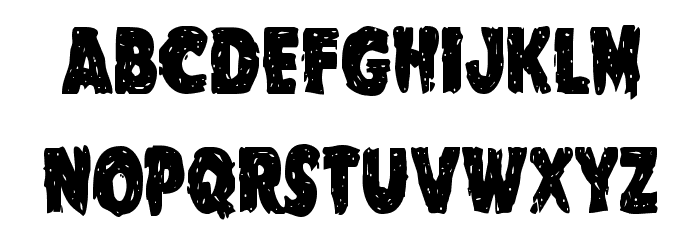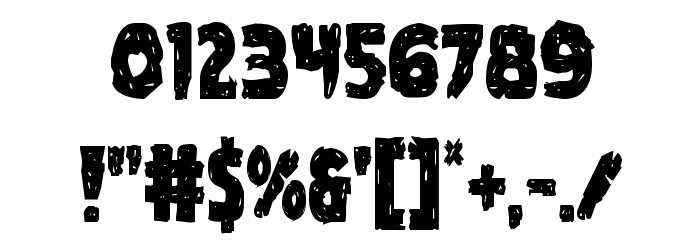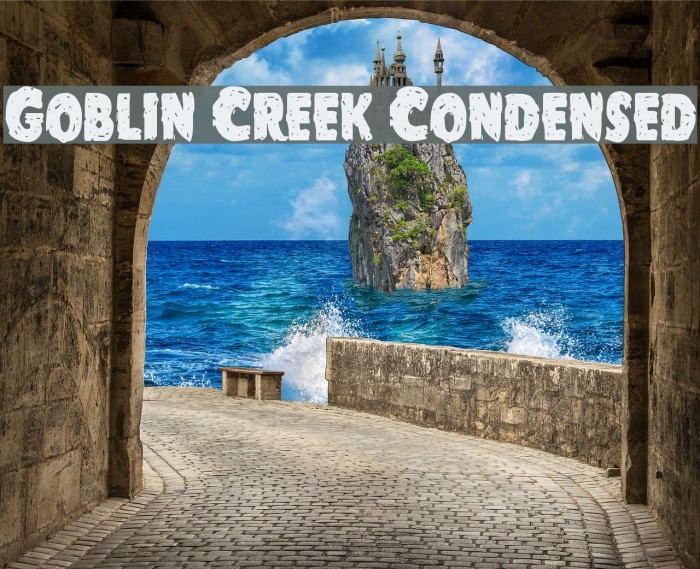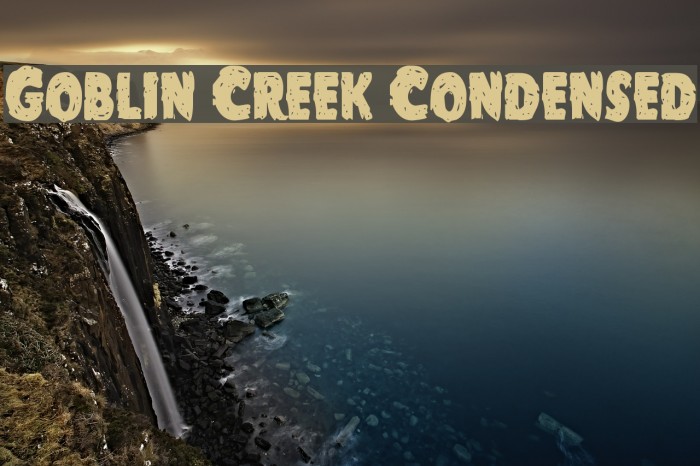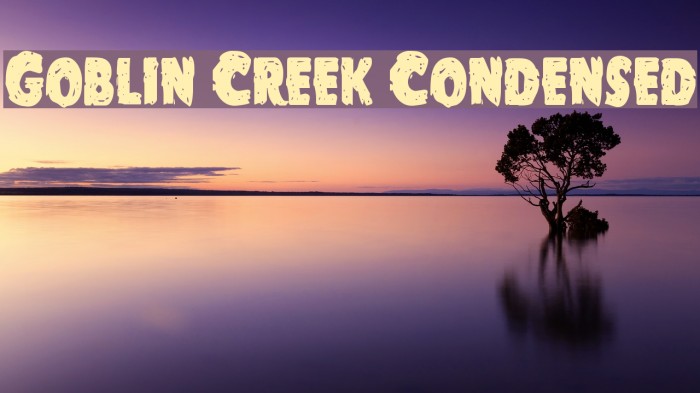
Goblin Creek Condensed Font
This font features a bold and rugged design with a distressed texture, giving it a unique, weathered appearance. The characters are condensed, enhancing their boldness and making them stand out. The uppercase and lowercase letters maintain a consistent style, with jagged edges and irregular shapes that add to the font's rustic charm. The numbers and special characters follow the same design principles, ensuring a cohesive look across all glyphs. This font is ideal for projects that require a strong, eye-catching typeface with a touch of grunge or vintage appeal.
A bold, distressed, and condensed font with a rugged, vintage look.
- Proposed Projects: Perfect for posters, album covers, branding for outdoor or adventure-themed products, and any design needing a bold, rustic touch.
- Overall Style: Vintage